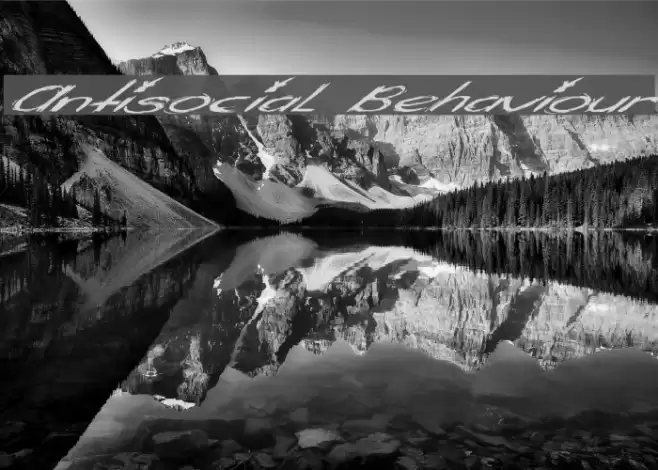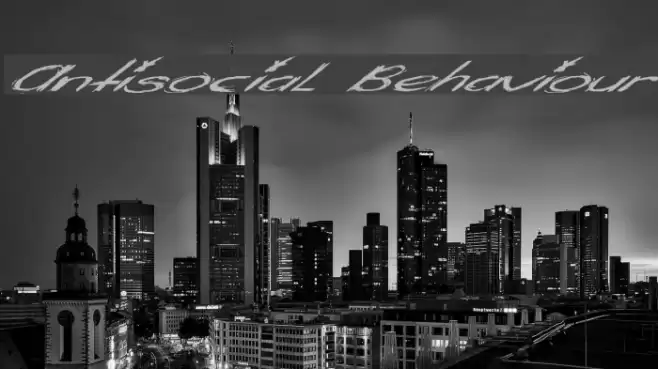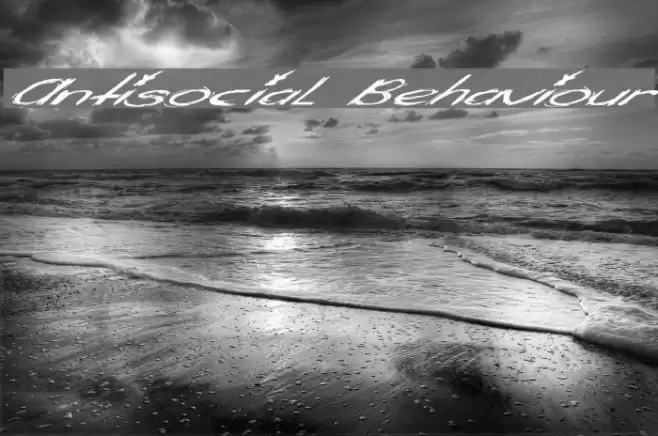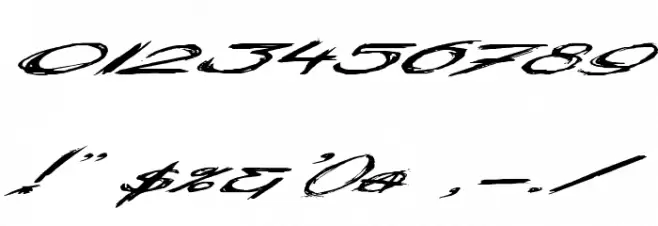
Antisocial Behaviour Font
Antisocial Behaviour Description
This font exhibits a dynamic and expressive style, characterized by its fluid, brush-like strokes that convey a sense of movement and energy. The letters are interconnected with sweeping curves and sharp angles, giving it a bold and artistic flair. The uppercase and lowercase letters maintain a consistent flow, while the numbers and special characters integrate seamlessly with the overall design. The font's unique appearance makes it stand out, suitable for creative and unconventional projects.
A dynamic, brush-style font with expressive, flowing strokes from Uncategorized fonts.
- Proposed Projects: Ideal for artistic projects, branding, posters, and any design requiring a bold, creative touch.
- Character Spacing: Tight